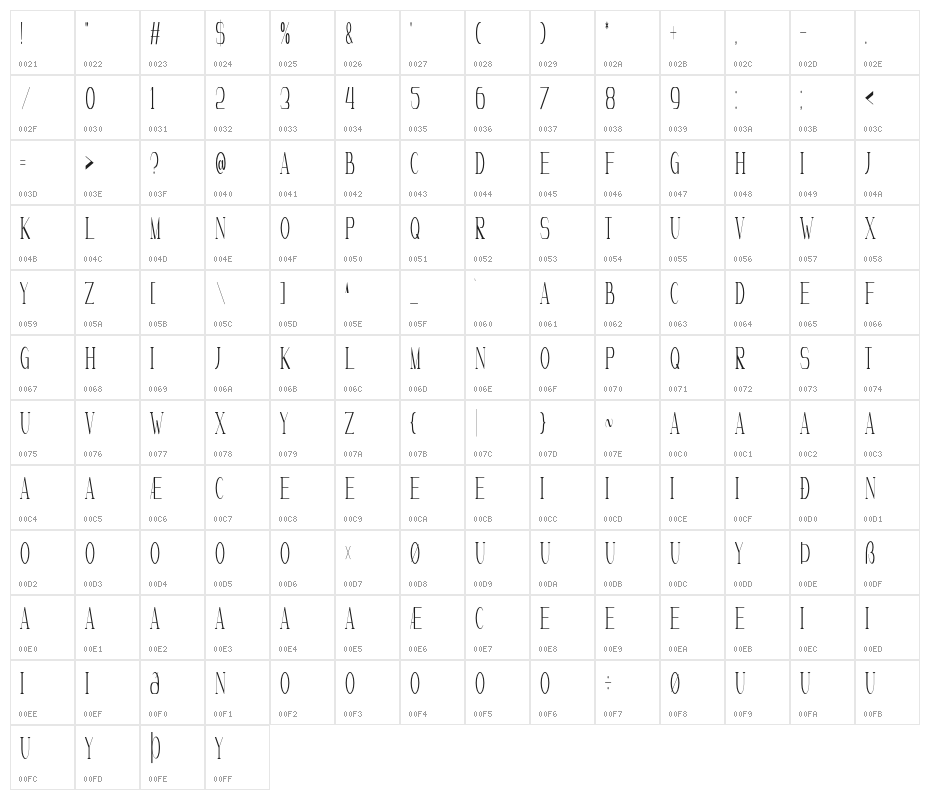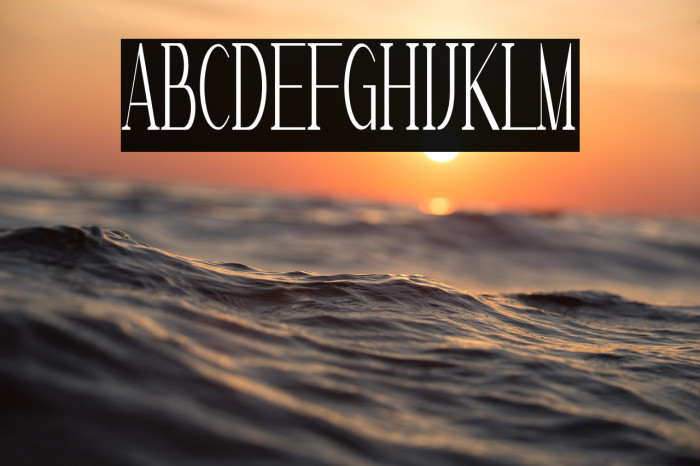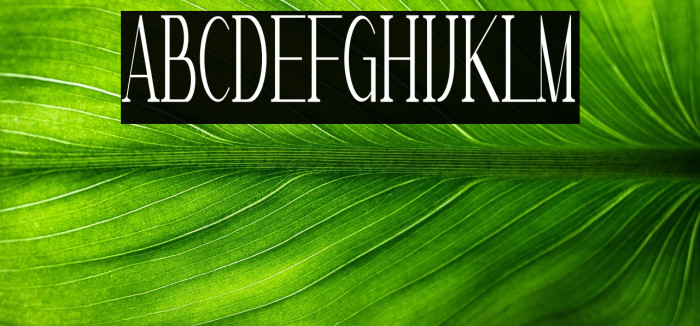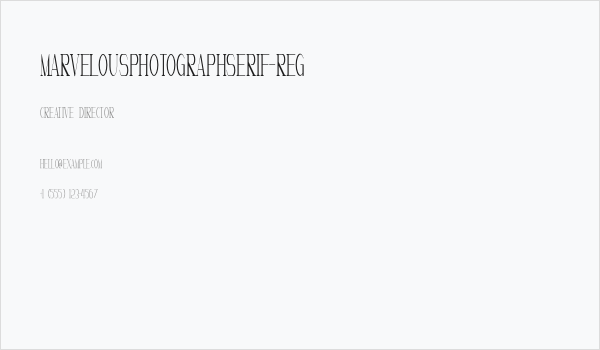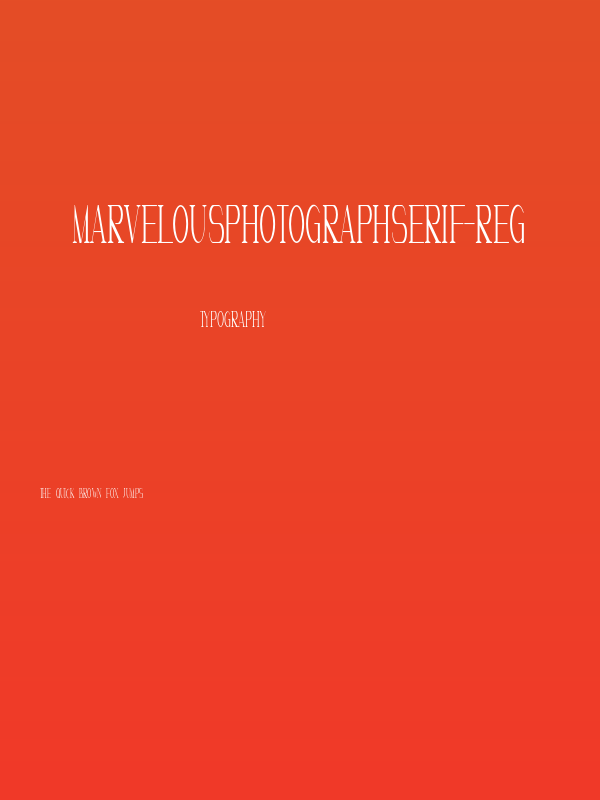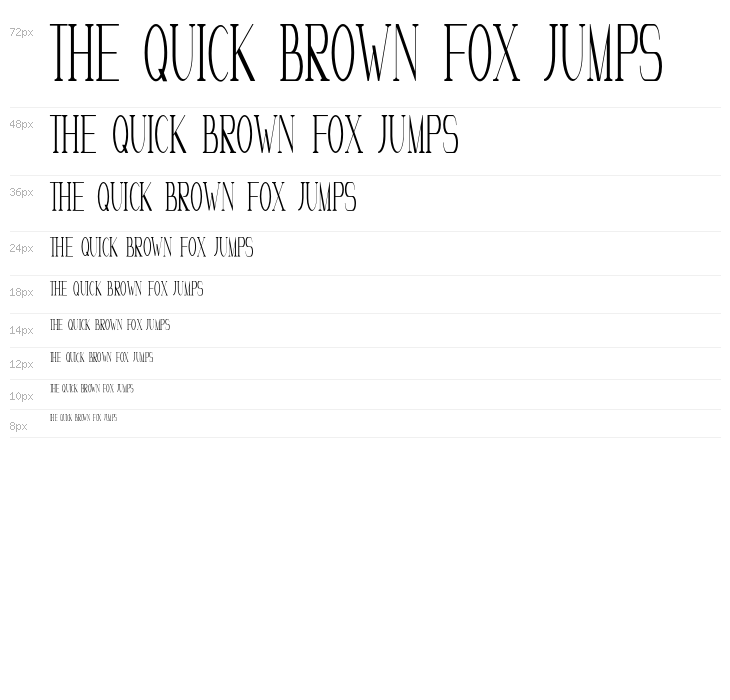
MarvelousPhotographSerif-Reg Font
MarvelousPhotographSerif-Reg Description
This font features a classic serif style with a modern twist, characterized by its tall, narrow letterforms and elegant serifs. The uppercase letters are particularly striking, with a refined and sophisticated appearance. The lowercase letters maintain a consistent style, offering a harmonious balance between readability and aesthetic appeal. Numbers are designed with a similar elegance, ensuring they complement the overall look. Special characters are included, providing versatility for various design needs. The font's high contrast in stroke thickness adds to its visual impact, making it suitable for both digital and print media.